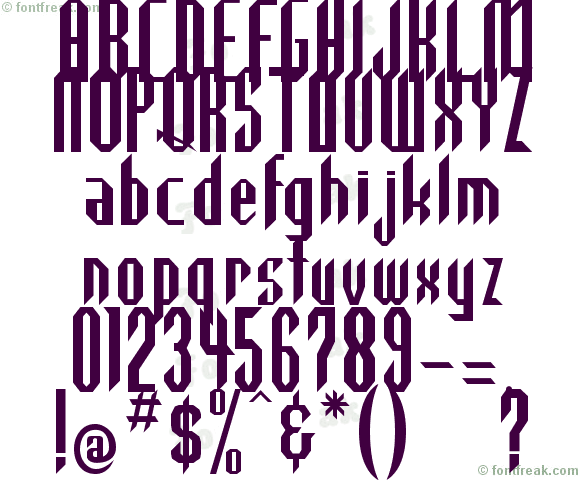
Highlander Regular
The Highlander font by Beccaelizabeth is a captivating display typeface that exudes both character and charm. This decorative font combines unique letterforms with a sense of whimsy, making it a perfect choice for various creative projects. The strokes of the Highlander font feature a moderate weight, striking a balance between boldness and readability. Its distinctive design is characterized by playful curves and angular elements that lend a touch of elegance, while maintaining a friendly appearance. The spacing between letters is well-considered, ensuring that each character stands out without appearing cluttered, making it ideal for eye-catching applications.
Highlander is incredibly versatile, making it suitable for a range of use cases. It shines in wedding invitations, providing a romantic yet contemporary feel that captures the essence of special occasions. Additionally, its unique aesthetic makes it a great choice for movie posters, as it can effectively convey the mood and theme of a film. Restaurant menus can also benefit from the Highlander font, adding a touch of personality that reflects the establishment’s ambiance. For content creators looking to enhance their branding, this font can elevate logos and social media graphics, ensuring that they stand out in a crowded digital landscape.
The target audience for the Highlander font includes graphic designers, small business owners, and content creators seeking a unique typeface that resonates with their brand identity. What sets the Highlander font apart is its blend of fun and sophistication, making it a standout choice for those who want to make a memorable impact. With the Highlander font free download available, anyone can easily incorporate this delightful typeface into their projects and unleash their creativity.